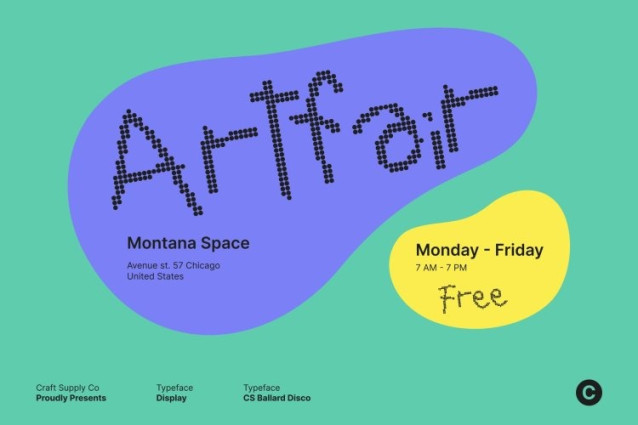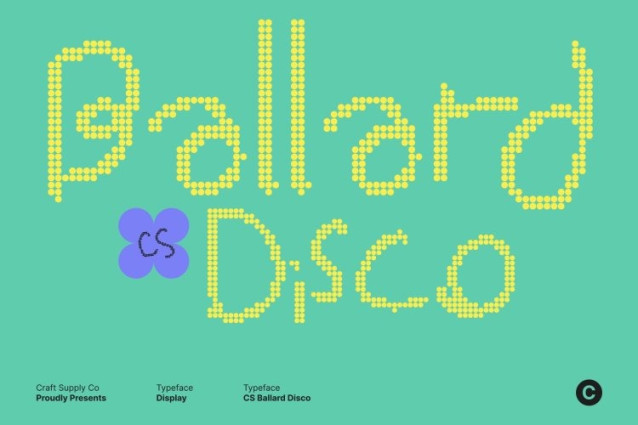
CS Ballard Disco Font
CS Ballard Disco Font This is a gritty yet stylish messy handwritten font that celebrates imperfection, spontaneity, and movement. Its freely scribbled forms capture the raw charm of natural handwriting while embracing the joyful chaos of disco culture. Each letter feels alive dancing, bouncing, and grooving bringing a fun, high-energy rhythm to any design.
Irregular Shapes with Retro Authenticity
Designed with uneven strokes and spontaneous flow, this font feels hand-drawn in a moment of creative freedom. The irregular letterforms and imperfect rhythm echo the expressive visuals of the 70s to early 80s era, giving the font a nostalgic yet playful personality that feels authentic and full of character.
Disco-Inspired Playful Expression
Infused with disco style, this font reflects the energy, glamour, and party atmosphere of the dance floor. Its cheerful movement and lively forms evoke flashing lights, funky music, and carefree nights, making every word feel celebratory, bold, and full of joy.
Perfect for Cheerful and Creative Designs
Ideal for playful posters, children’s graphics, retro-themed branding, DIY packaging, party visuals, and fun typography, this font adds warmth and personality wherever it’s used. This font embraces chaos in the best way turning every design into a vibrant, expressive, and delightfully retro celebration.